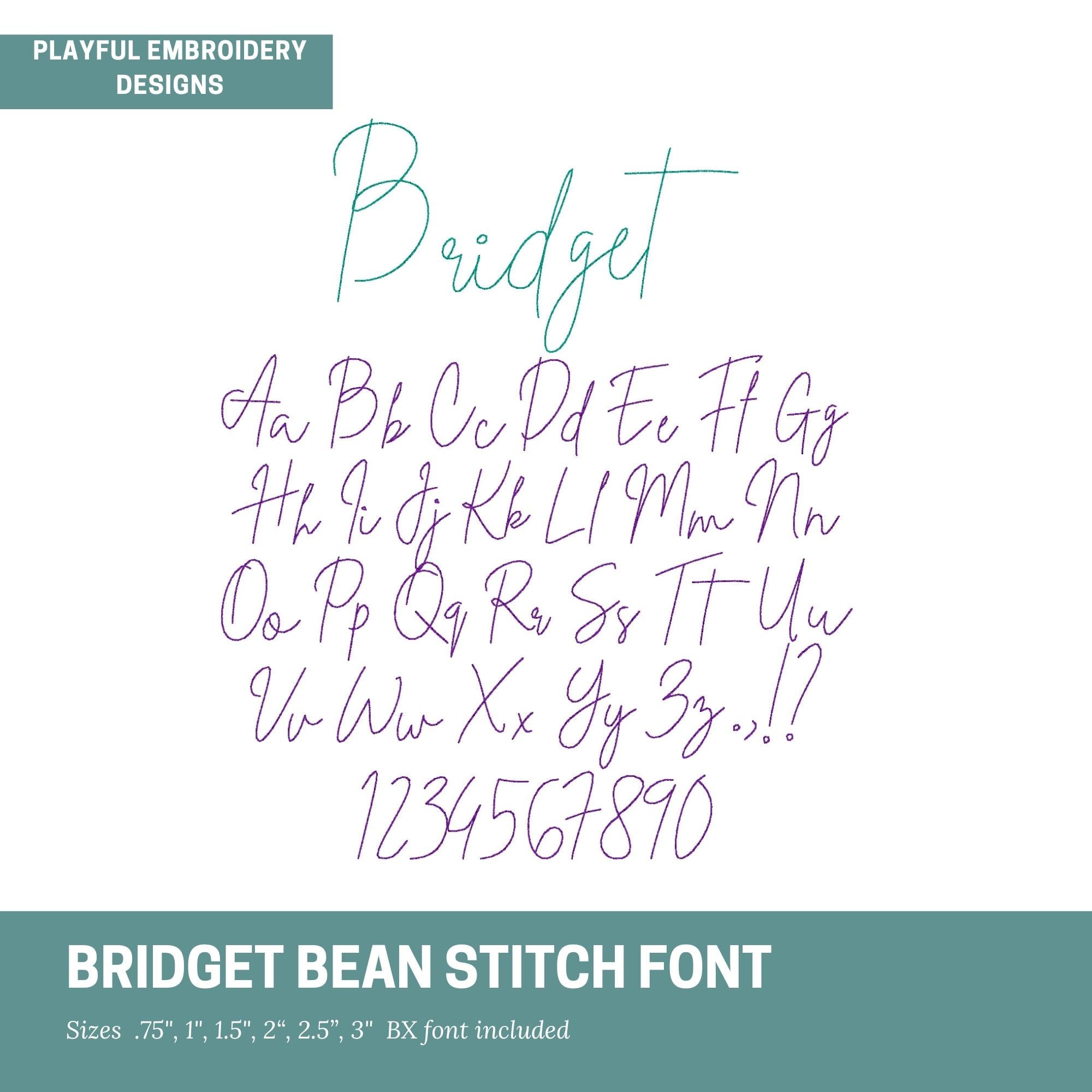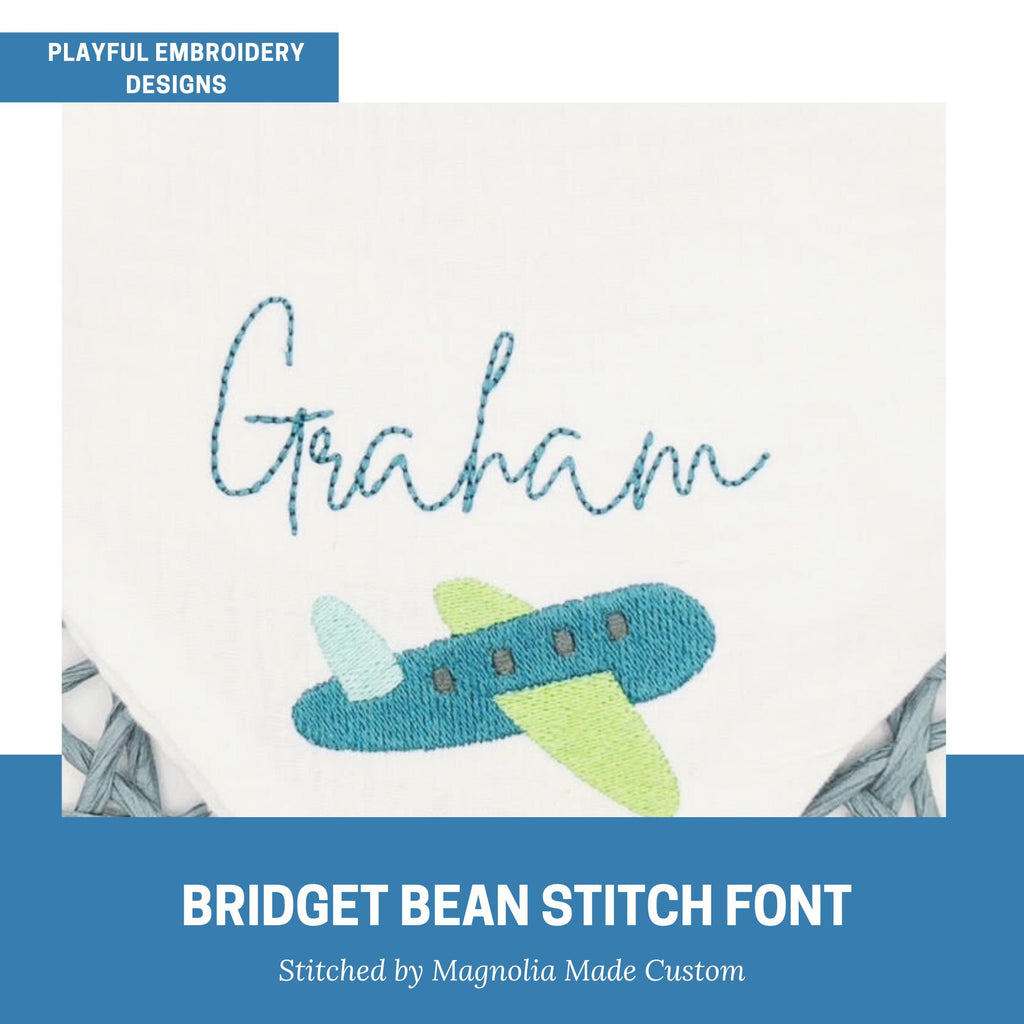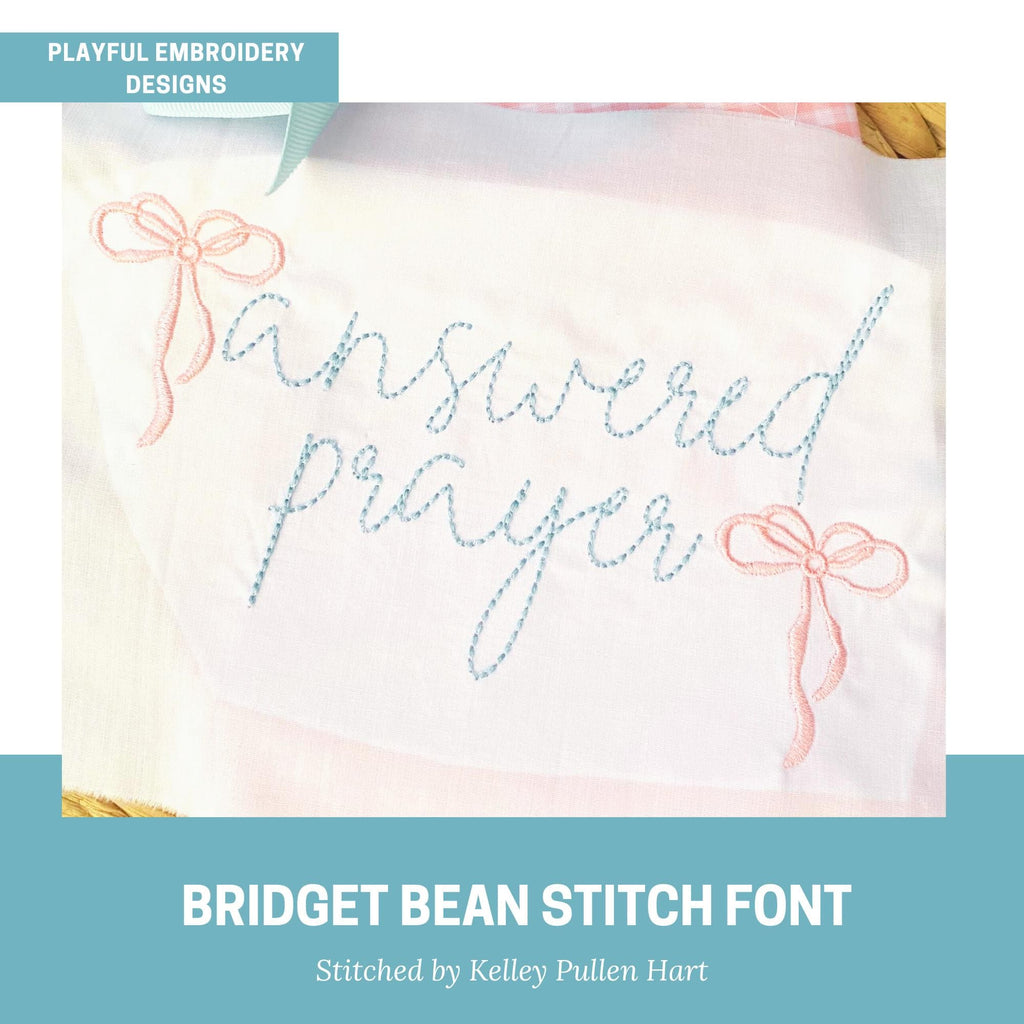
Bridget Bean Stitch Embroidery Font, Handwriting Machine Embroidery Font, Playful Embroidery font, .75", 1", 1.5", 2", 2.5", 3" font size
Introducing the Bridget bean stitch handwriting machine embroidery font. This fun and playful font is perfect for children's and baby items or anything you want a handwritten look.